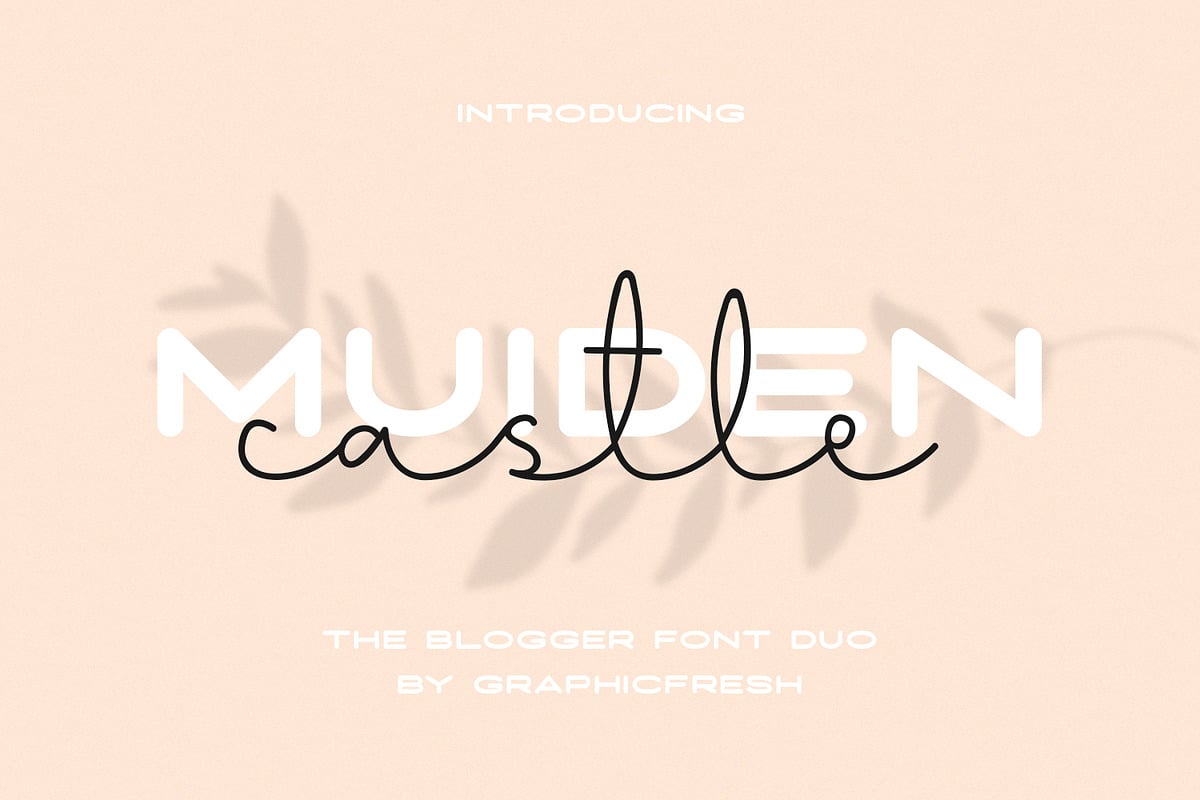
Muiden Castle - The Blogger Font Duo
A chic font duo pairing clean sans serif with flowing script — built for elegant, feminine design.
Introducing Muiden Castle Font Duo — a beautifully balanced pairing of an elegant sans serif and a fluid handwritten script. With its feminine aesthetic and refined style, this duo is designed to make any project feel polished and distinctive.
Perfect for a wide range of creative applications, including:
- Branding & logo design
- Wedding invitations & stationery
- Magazines & editorial layouts
- Posters, signs & letterheads
- Business cards
- Mugs, T-shirts & merchandise
- Quotes & social media graphics